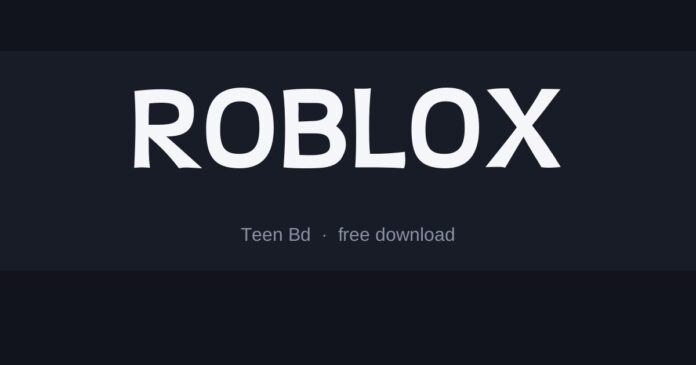
What font is the Roblox logo?
The current wordmark is a custom rounded geometric sans — even weight, soft corners, and a slightly narrow set that keeps the six letters compact.
Earlier versions were blockier and more angular, so older screenshots will not match the current mark.
- Teen Bd is the closest — rounded, geometric and bold without becoming heavy.
- Tork Bd is a little wider and softer, good for headings.
- Baloo 2 is rounder still and variable, useful when you want something friendlier for younger readers.
Where the style comes from
Rounded geometric sans faces became the default for platforms aimed at children because soft corners read as approachable while the geometry keeps it looking built rather than hand-drawn.
The rounding is the whole signal here. A sharp-cornered geometric of the same weight reads as a technology company instead.
Setting it well
- Keep the weight even — rounded faces lose their friendliness when one part gets heavier
- Set it tight; the wordmark is compact rather than airy
- Avoid outlines, which fill in the rounded corners and undo the effect
Is this the exact font used for Roblox?
Not exactly. The original lettering was custom drawn or is not publicly licensed, so the fonts here are close recreations. Teen Bd is the nearest match we have found.